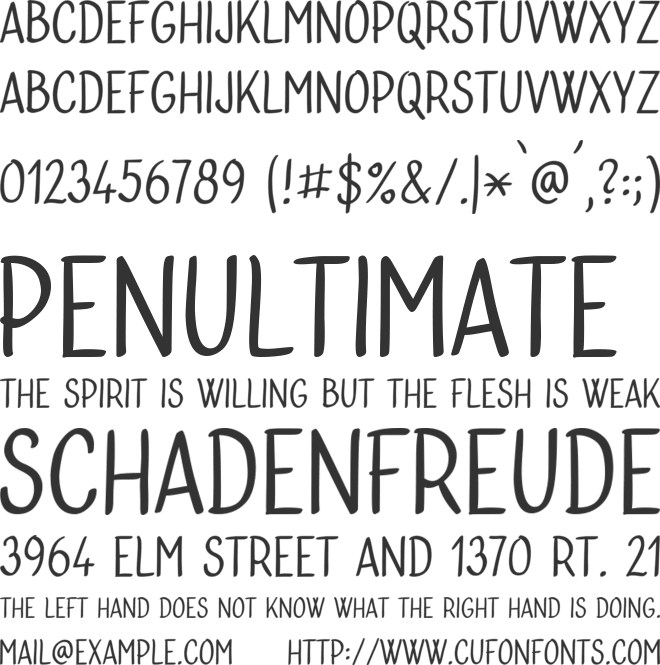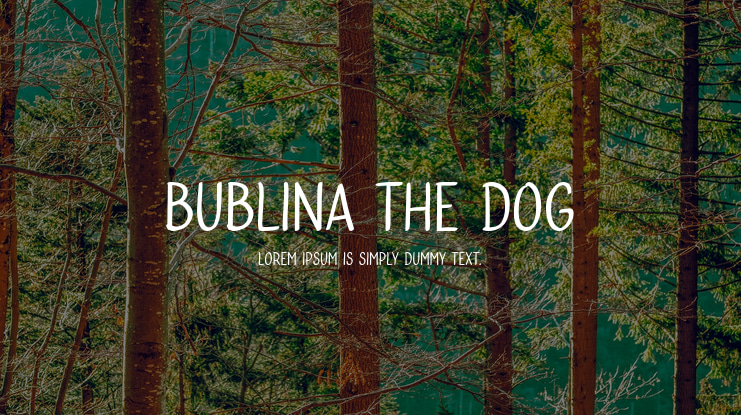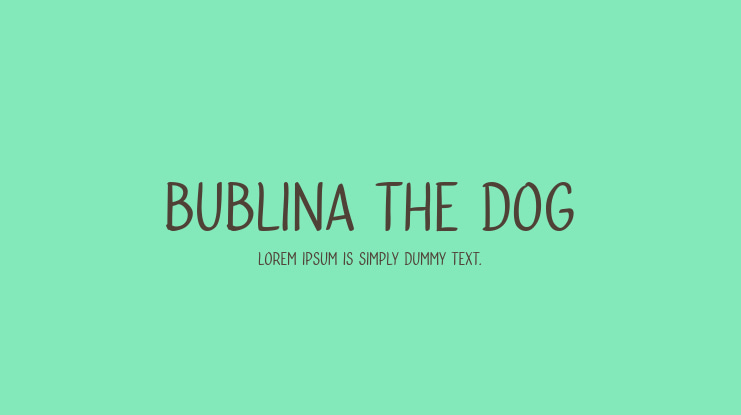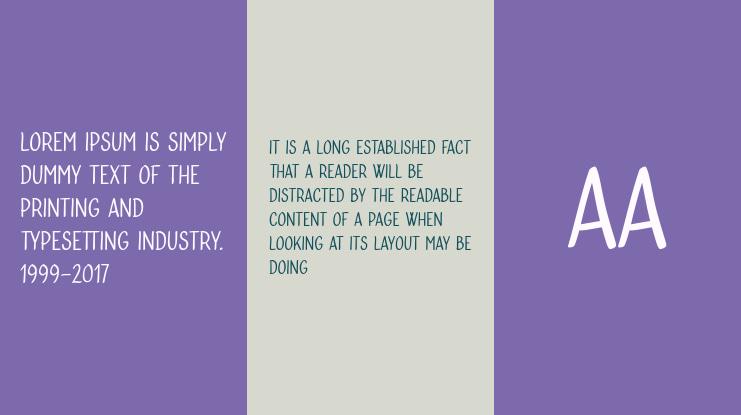
Bublina the Dog Font Family
Vít Čondák
As the name suggests I intended this font to be used in comic bubbles so it does not include lower case letters.
Since version 0.29 the font includes Greek and Cyrillic letters (Russian, Ukrainian, Kazakh) and it also comes with Bold and Black version.